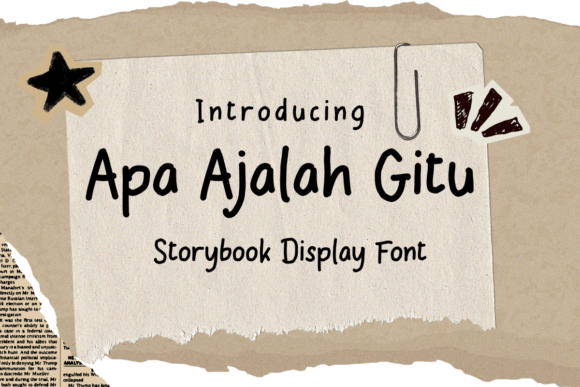
Discover the Whimsical World of Apa Ajalah Gitu Font
Have you ever been in the middle of a design project, pouring your heart and soul into it, only to get stuck on one thing: finding the perfect font? I certainly have! Recently, I was working on a nursery branding project for a client who wanted a font that would evoke a sense of wonder and playfulness. After scouring the internet for hours, I stumbled upon Apa Ajalah Gitu, a charming storybook display font that instantly captured my heart. In this article, I’ll share my experience with Apa Ajalah Gitu, its features, and how to make the most of it in your creative projects.
A Personal Review of Apa Ajalah Gitu
• ✨ Soft, rounded letterforms that exude a sense of warmth and friendliness
• ✅ Gentle, organic flow that mimics traditional children’s book illustrations
• 🎉 Approachable weight that’s perfect for titles, headings, and short texts
• 🔥 Extensive OpenType features, including stylistic alternates and glyphs
While Apa Ajalah Gitu is an amazing font, it’s not without its quirks. Here are a few things to keep in mind:
• ⚠️ Limited character set: Apa Ajalah Gitu is designed for display purposes, so it’s best used for short texts and titles.
• 🤔 Some characters may not work well at very small sizes, so it’s best to use it at larger sizes (20px and above).
The Backstory Behind Apa Ajalah Gitu
Apa Ajalah Gitu was designed with the intention of capturing the innocence and wonder of traditional children’s book illustrations. The font’s creator drew inspiration from classic storybooks, combining soft, rounded letterforms with a gentle, organic flow. The result is a font that’s both whimsical and approachable, perfect for nursery branding, whimsical teacher resources, playful classroom decor, and cinematic “cottage-core” social media headers.
What is Apa Ajalah Gitu best used for? Apa Ajalah Gitu is best used for display purposes, such as titles, headings, and short texts. It’s perfect for nursery branding, whimsical teacher resources, playful classroom decor, and cinematic “cottage-core” social media headers.
Does Apa Ajalah Gitu support OpenType features? Yes, Apa Ajalah Gitu features extensive OpenType features, including stylistic alternates and glyphs. You can access these features in compatible design software, such as Adobe Creative Cloud.